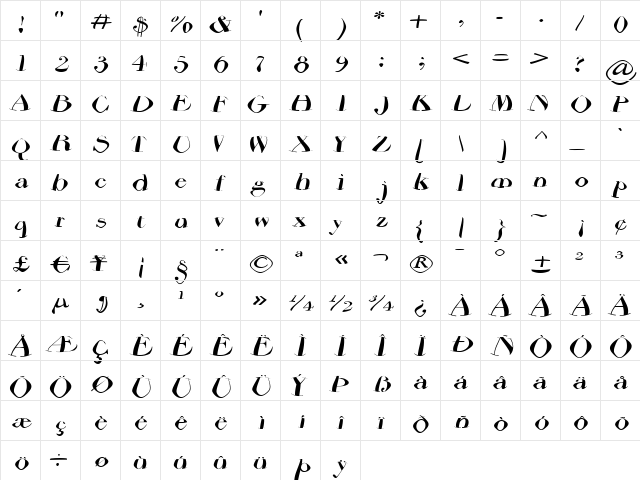
AirdriedParmaFont Regular
Design Context for AirdriedParmaFont Typeface
AirdriedParmaFont is a composed and adaptable typeface that performs quietly and consistently across a wide range of design contexts.